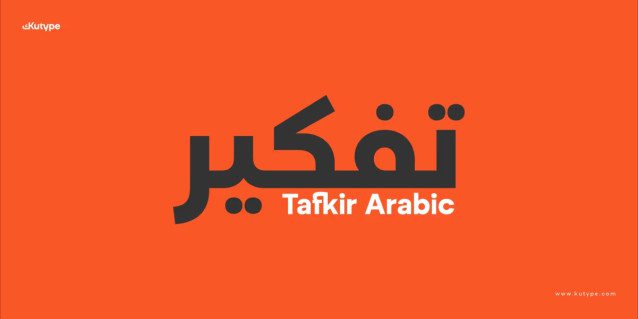
Tafkir Font
Tafkir Font, a Neo-Grotesque display font that combines current geometry with contemporary character. Its low contrast design promotes sharpness and legibility, making it very adaptable to a wide range of applications.